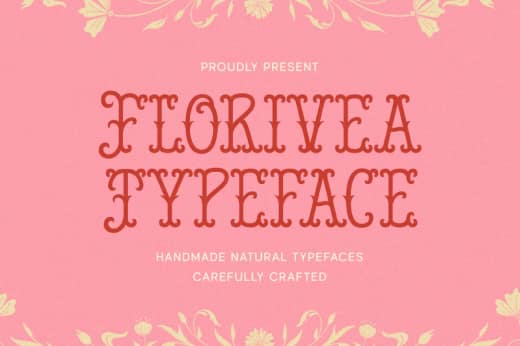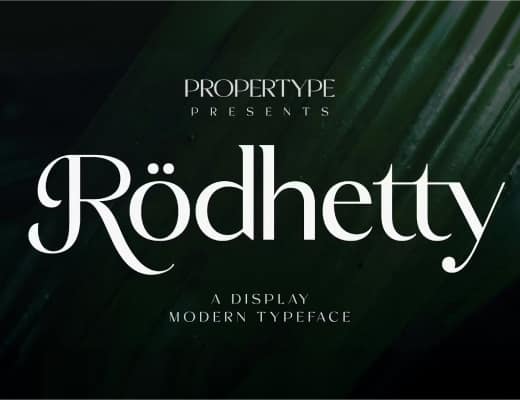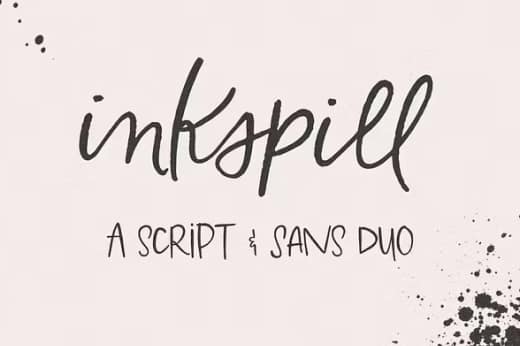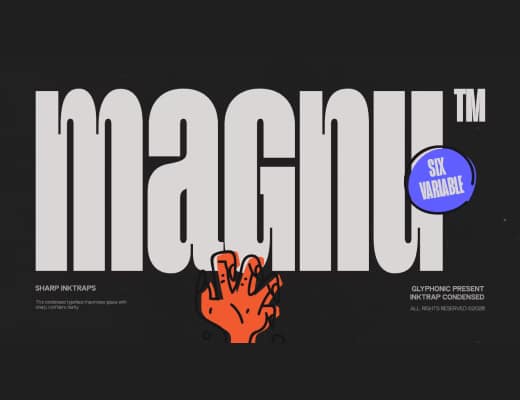
A playful handwritten duo that brings personality and charm to every project. Designed for makers, creators, and small business brands, Inkspill adds a warm, expressive touch that feels effortless, creative, and full of character.
This font feels like a sweet little throwback wrapped in soft petals and sunshine. With its curvy serif shapes, playful details, and slightly quirky rhythm, this font brings a gentle retro charm that’s both cute and eye-catching.
A modern sans serif typeface engineered with precision, functionality, and bold character. Featuring distinctive inktrap details and a condensed structure, it is designed to maximize readability while maintaining a strong and contemporary visual presence.
A refined display serif with graceful curves and striking contrast, Rodhetty brings timeless sophistication to branding, editorials, and luxury-inspired design. Crafted for creators, it delivers a polished look that feels both modern and effortlessly classic.